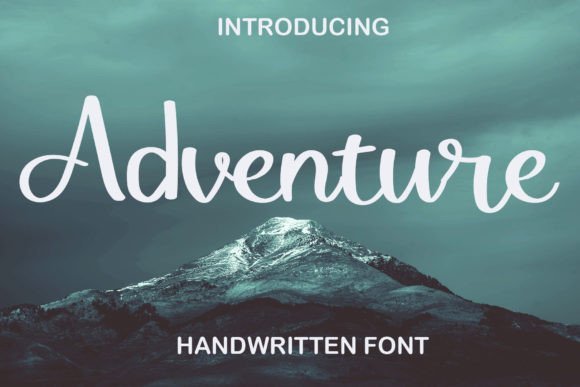
The Perfect Companion for Your Most Epic Designs
Have you ever been brainstorming for hours, pouring your heart and soul into a new project, only to feel like something is missing? The spark that ignites your creativity, that one element that takes your design from good to great? For many of us, that spark is the perfect font.
Enter Adventure Font, a delicate, elegant, and flowing handwritten font that brings a touch of sophistication to any design. Its beautiful and well-balanced characters make it a versatile choice for a wide range of projects, from elegant invitations to adventurous travel blogs.
As a designer, you know how valuable a great font can be in elevating your work and setting it apart from the crowd. That’s why we’re excited to introduce you to Adventure Font, a reliable companion that will help you bring your most creative ideas to life.
Adventure Font Key Features
- Font Family: Adventure Font comes in two font families: Adventure Regular and Adventure Bold.
- Unique Characteristics: Adventure Font features a unique blend of modern and vintage elements, with intricate details and subtle textures that give it a distinctive look.
Adventure Font Review
I recently had the chance to play around with the Adventure Font, and I’m here to share my honest thoughts on it. Overall, I found it to be a fun and unique addition to any design project.
- ✨ The font’s bold and adventurous feel is perfect for projects that need a sense of excitement and energy.
- ✨ The font’s versatility allows it to be used for a wide range of projects, from logos to signage to digital graphics.
- ✨ The font’s unique design elements, such as the varying line widths and rounded edges, add a touch of whimsy and personality.
- ⚠️ The font may be too bold or overwhelming for certain projects, especially those that require a more subtle or professional look.
- ⚠️ The font’s unique design elements may not be suitable for projects that require a lot of fine detail or precision.
- ⚠️ Some users may find the font’s variations in line width and edge style to be inconsistent or distracting.
The Adventure Font is a great choice for designers who want to add a sense of excitement and energy to their projects. While it may have some limitations, its unique design elements and versatility make it a valuable addition to any design toolbox.
Adventure Font is ideal for:
- Creating bold and adventurous headlines.
- Adding a sense of excitement to travel or outdoor-themed designs.
- Creating eye-catching titles and subtitles.
Remember to experiment with different font sizes, colors, and styles to get the most out of Adventure Font.
Alternatives to Adventure Font
Playfair Display is a luxurious and elegant serif font that is perfect for high-end designs, luxury branding, and invitations. It features intricate details and connections between letters, making it stand out from other fonts. When to use: Luxury branding, invitations, and high-end designs. Compared to Adventure Font, Playfair Display is more elegant and sophisticated, while Adventure Font is more adventurous and playful.
Rockwell is a strong and sturdy serif font that is ideal for industrial and technical designs. It features a classic look with a modern twist, making it perfect for designs that require a sense of authority and reliability. When to use: Industrial, technical, and corporate designs. Compared to Adventure Font, Rockwell is more serious and professional, while Adventure Font is more adventurous and energetic.
Great Vibes is a modern and stylish script font that is perfect for creative and artistic designs. It features a flowing and dynamic feel, making it ideal for designs that require a sense of movement and energy. When to use: Creative, artistic, and inspirational designs. Compared to Adventure Font, Great Vibes is more fluid and dynamic, while Adventure Font is more playful and adventurous.